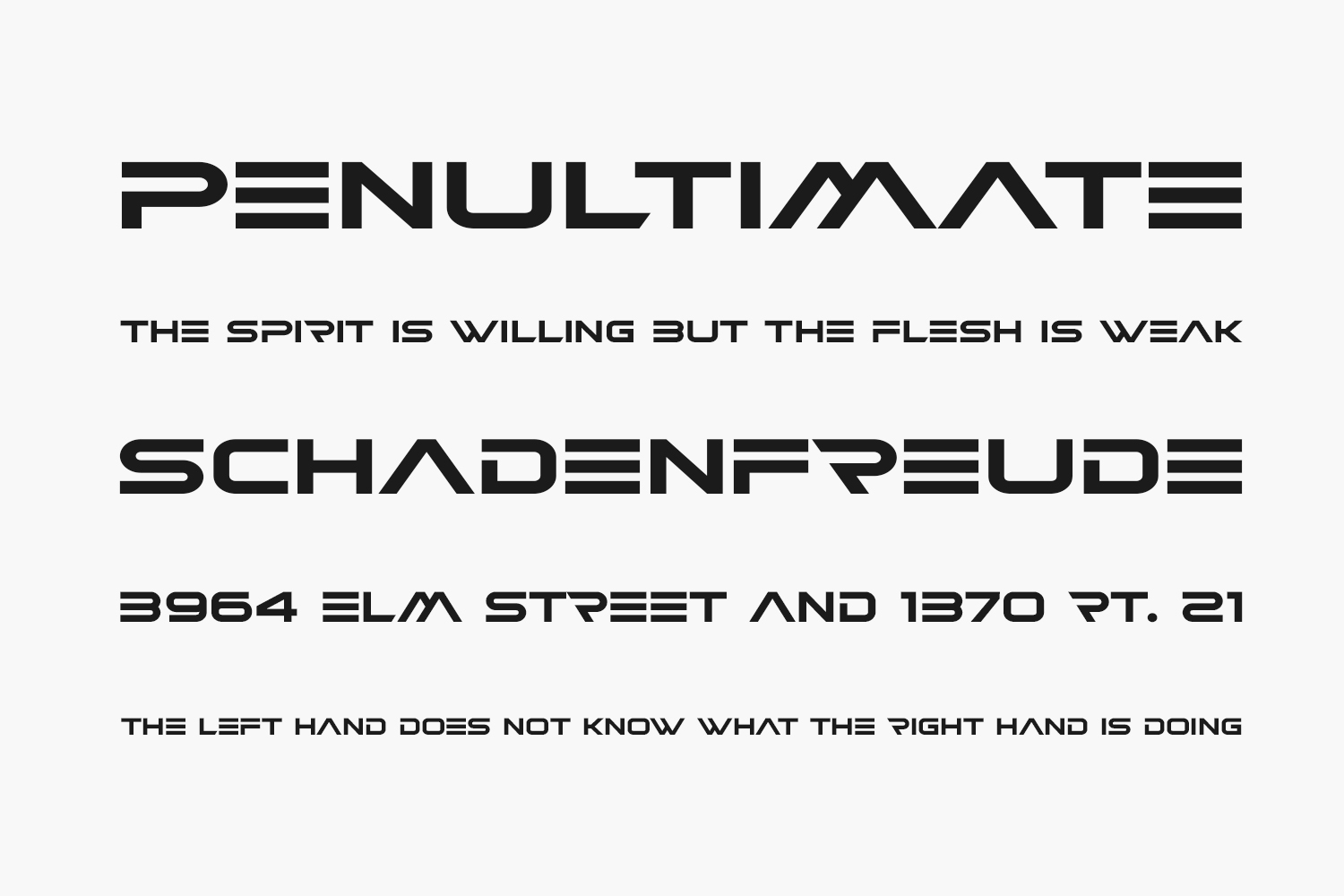
Varelmo Free Font – Bold Display Typeface for Logos & Branding
Varelmo is a bold and versatile display font designed by Albert Kalingga to bring strong visual identity and modern clarity to your creative projects. With its clean structure, high contrast, and expressive detailing, this free decorative typeface works perfectly for crafting memorable logos, e-sports branding, t-shirt prints, posters, and more. Available in TTF and OTF formats — ideal for designers seeking a powerful font that commands attention without sacrificing legibility.
Why Choose Varelmo?
- Bold Display Style: Combines sharp lines with thick strokes for a strong, modern appearance.
- Ideal for Branding & Merch: Perfect for logos, brand badges, or clothing tags needing attitude and impact.
Where to Use Varelmo?
Varelmo shines across a variety of design applications:
- Logos & Badges: Adds intensity to brand identities for underground studios, gaming teams, or lifestyle brands needing a strong tone.
- T-Shirt & Apparel Design: Perfect for printing on clothes, hoodies, or accessories with a bold style.
- Poster & Billboard Design: Designed for visibility — makes headlines pop in outdoor advertising and event banners.
- Social Media Graphics: Creates striking text overlays for Instagram Stories, TikTok videos, or YouTube thumbnails with an edgy vibe.
- Packaging Design: Enhances product tags, novelty items, or sticker designs requiring a dramatic presence.
Design Tips with Varelmo